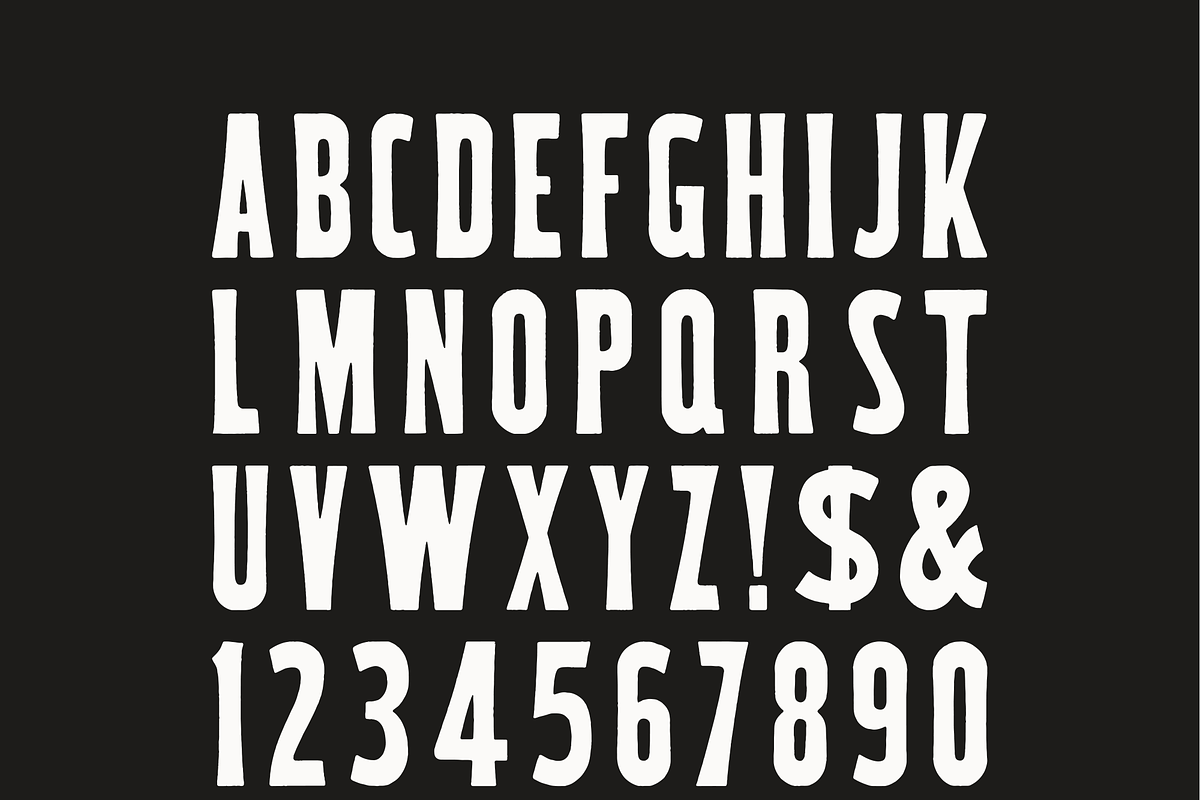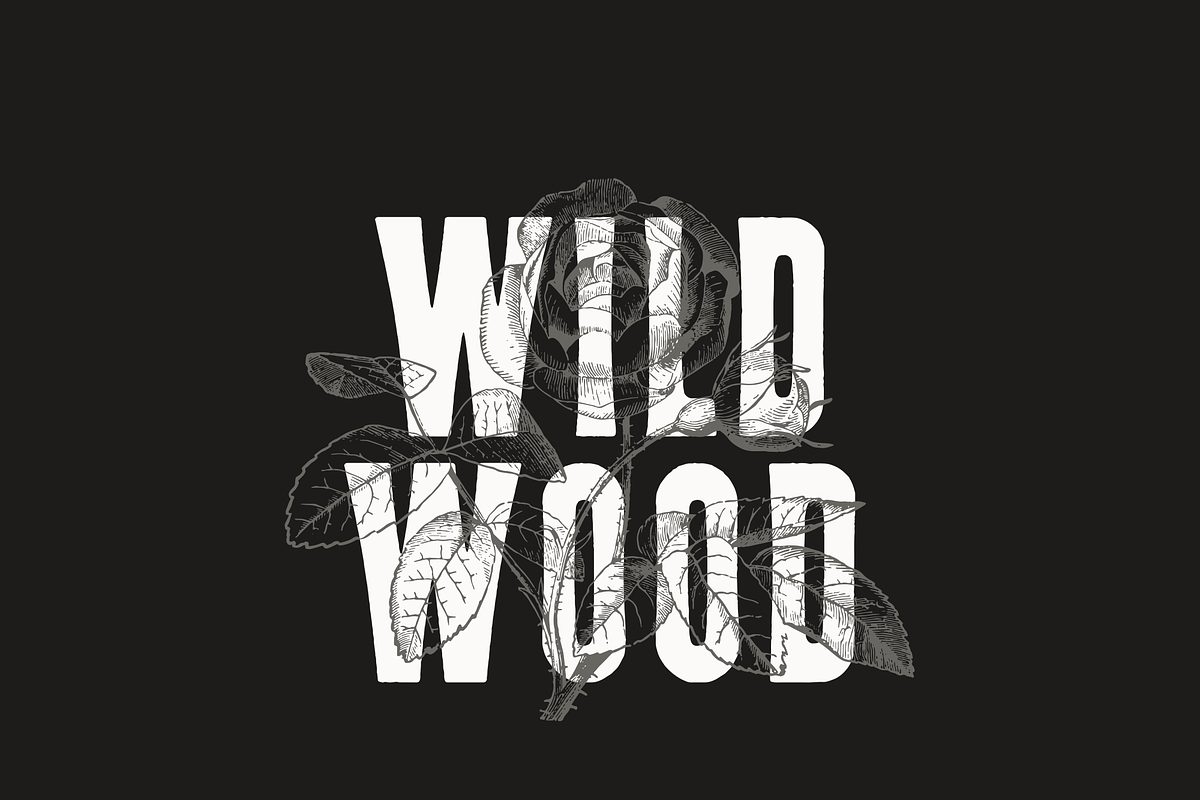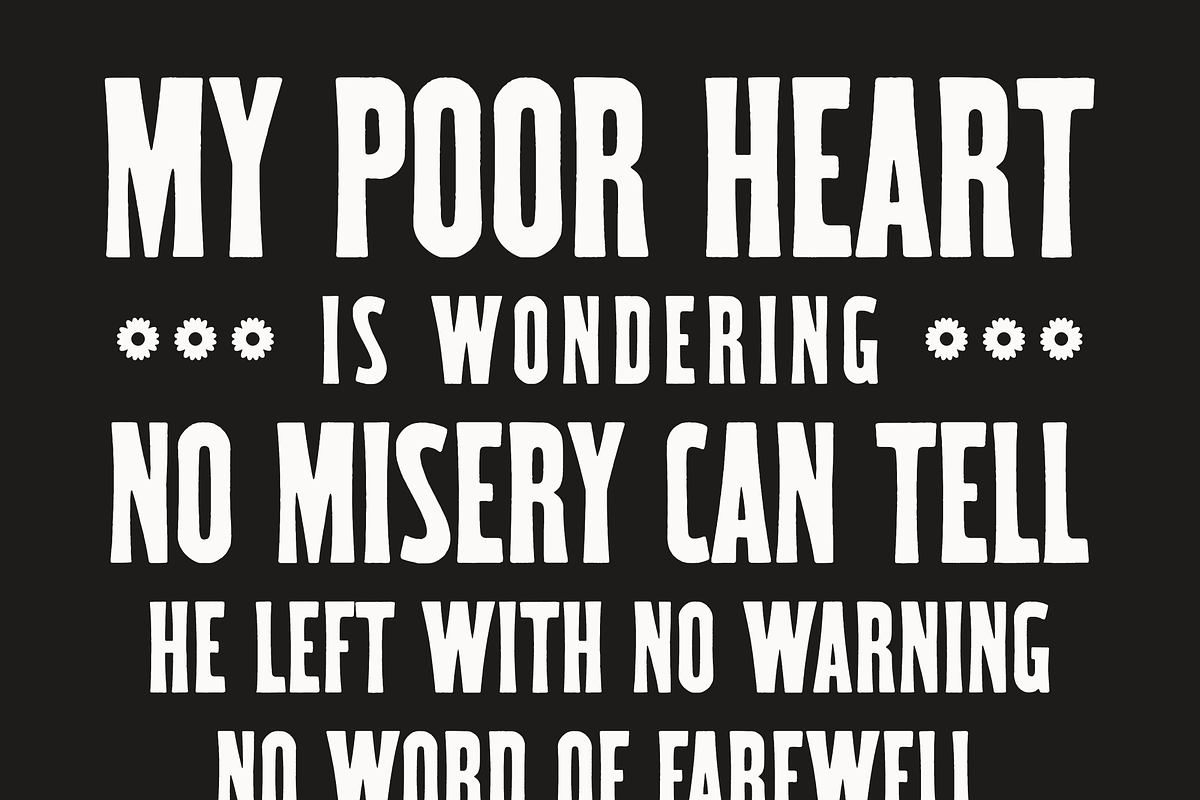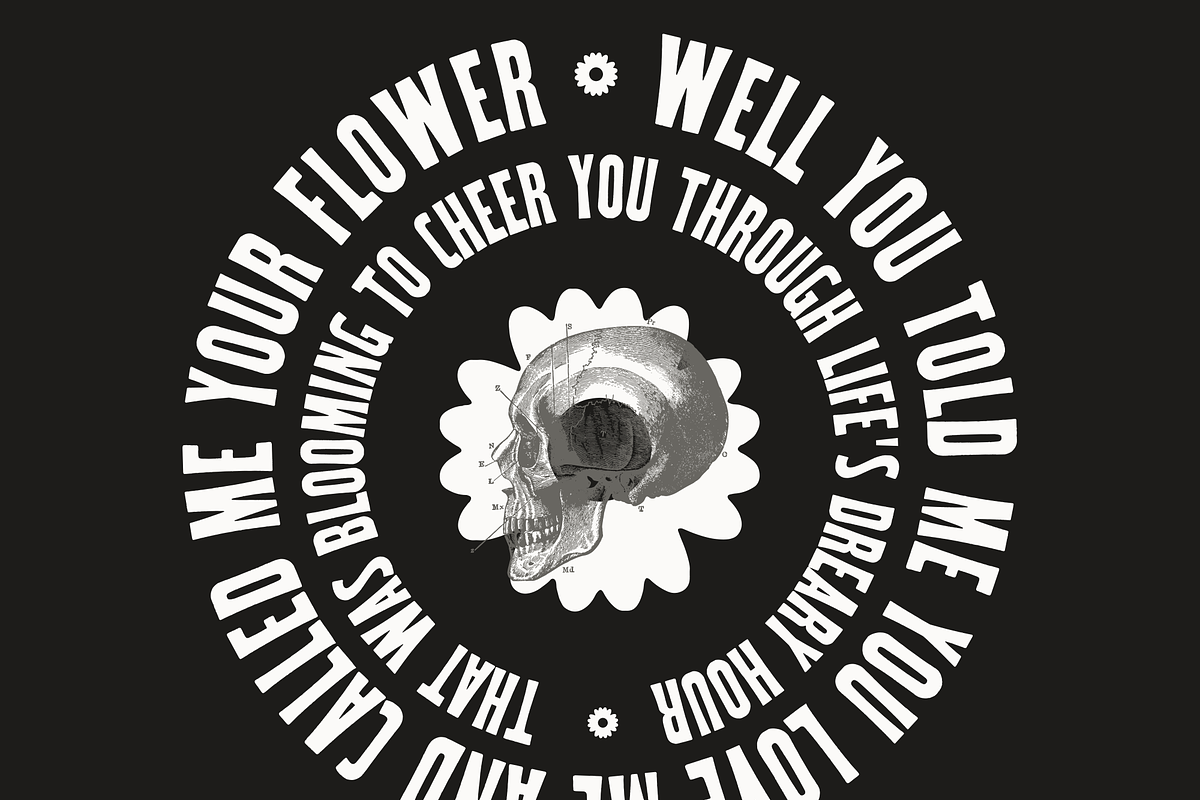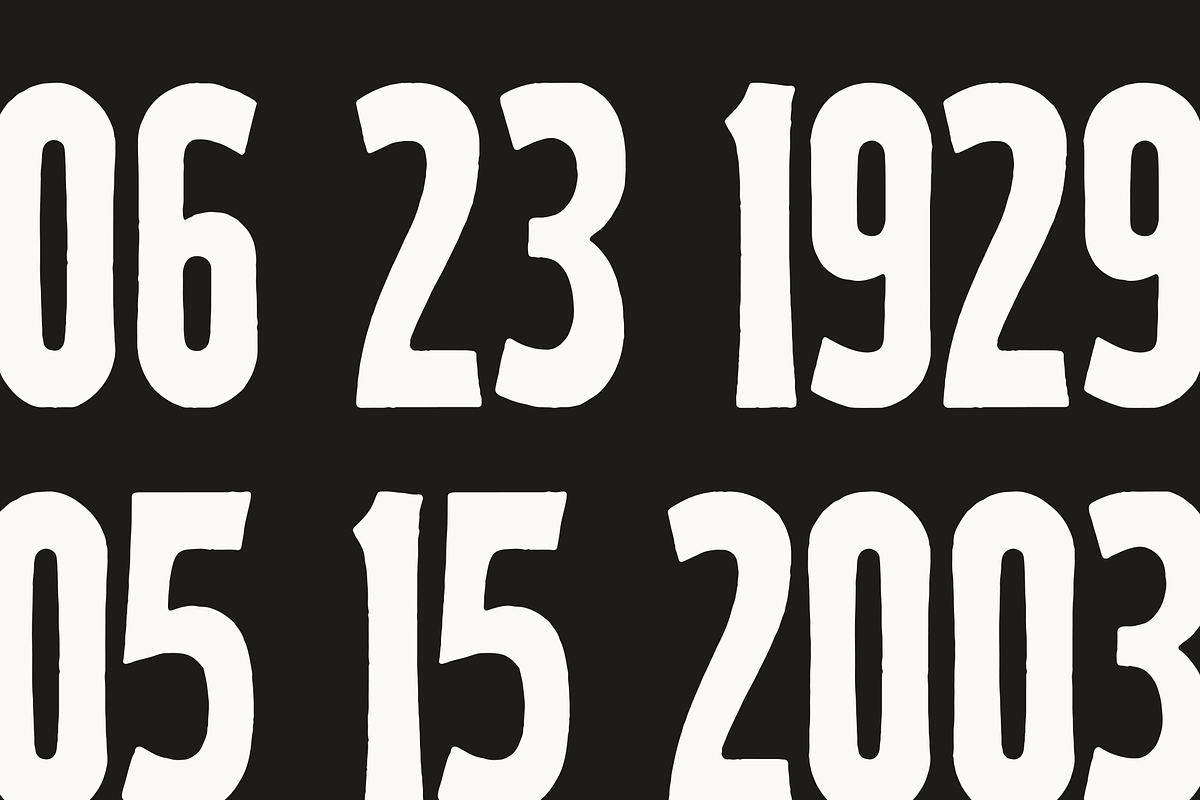
Wildwood
Wildwood is a funky typeface that is somehow soft and rough at the same time.
This typeface is part of a series of reviving wood type. They are drawn from scans of wood type, therefore they are far from pixel perfect. Minor adjustments and liberties are made to each of the typefaces.